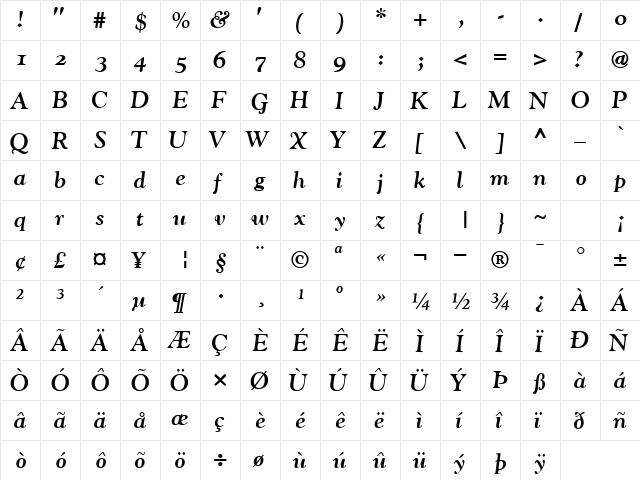
GoudyOSSSK Bold Italic
Design Context for GoudyOSSSK Typeface
GoudyOSSSK is a composed and adaptable typeface that performs quietly and consistently across a wide range of design contexts. The dynamic lean of this cut emphasises speed and emphasis in any layout. Its bold stroke weight gives it real presence on the page.